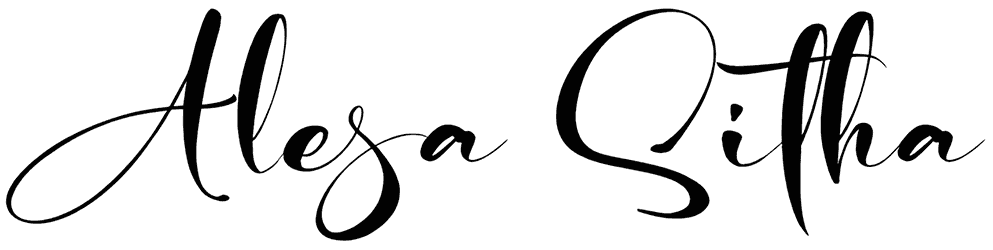
Alesa Sitha Font
Curved lines with delicate designs make Alesa Sitha a super delightful tone, which makes it perfect for wedding cards, romance book covers, drama movie titles, etc. This script font is brilliant; it comes with a complete collection of all the characters that help you to bring your ideas to life.